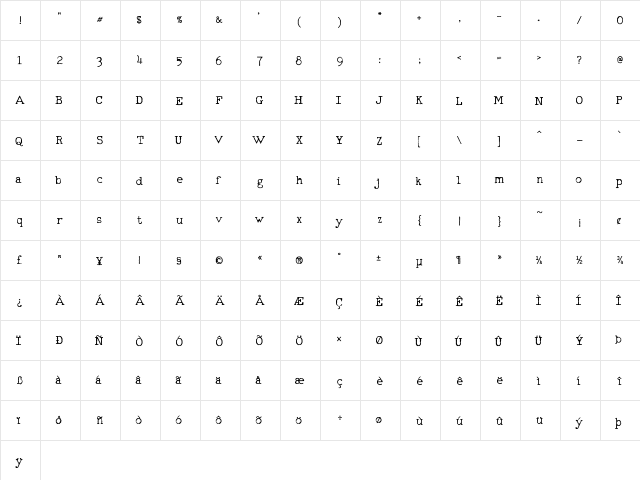
RM Typerighter old Regular
| Designer | Ray Meadows |
Design Context for RM Typerighter old Typeface
RM Typerighter old takes a measured approach to typography — its balanced proportions and neutral character make it a reliable workhorse for both digital and print work.